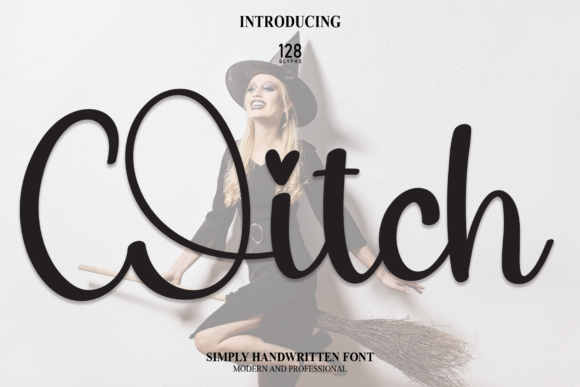
Looking for a font that can take your design ideas to the next level? Look no further than Witch Font, one of the best fonts for app design in 2017. This script font family is the creation of andikastudio and is sure to add a touch of fun and friendliness to any project.
What sets Witch Font apart from the rest is its unique charm. This handwritten font exudes personality and is perfect for those who want their designs to stand out from the crowd. Whether you're designing a website, creating a logo, or developing an app, Witch Font is the perfect choice.
But don't just take our word for it. With Witch Font, you can let your creativity run wild and create lovely designs that are sure to capture the attention of your audience. Use it to add a personal touch to your social media graphics or make your product packaging pop. The possibilities are endless!